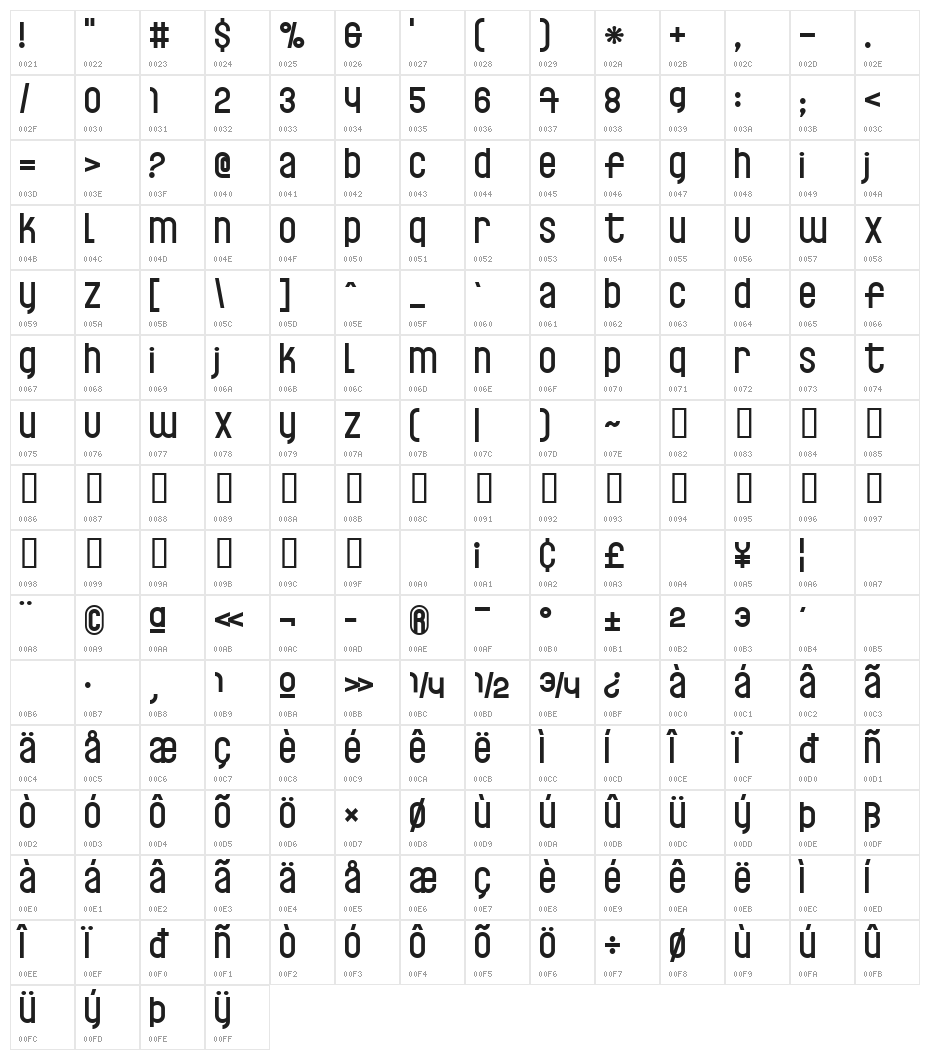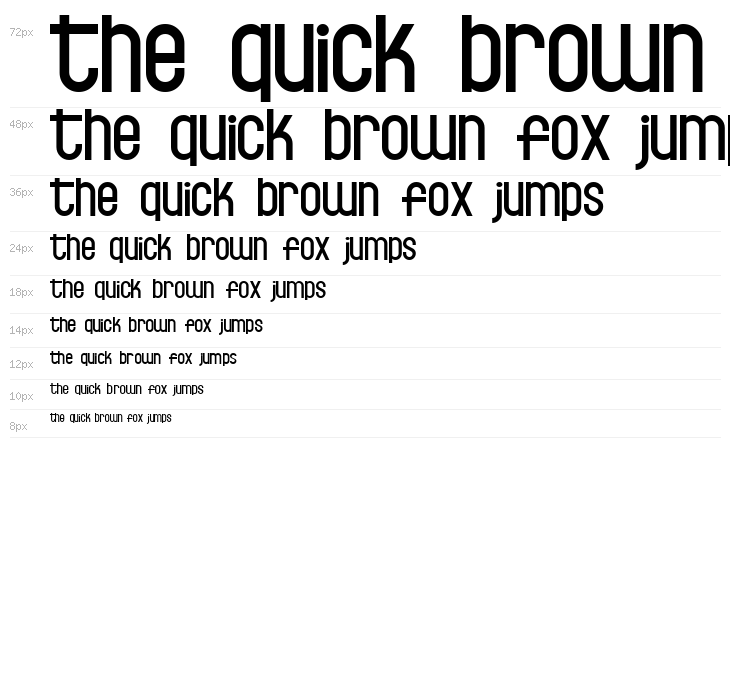
Fishsoup Font
Fishsoup Description
This font features a modern and geometric design with clean lines and a uniform structure. The characters are bold and rounded, giving a sense of stability and friendliness. The uppercase and lowercase letters maintain a consistent height, which enhances readability. The numerals are distinct and align well with the overall style, while the special characters are designed to complement the alphabetic characters seamlessly. This font's balanced proportions and smooth curves make it versatile for various applications.
| Use Case | Headlines, Logos, Branding |
| Proposed Projects | Ideal for branding, advertising, packaging, and digital media projects where a modern and approachable look is desired. |